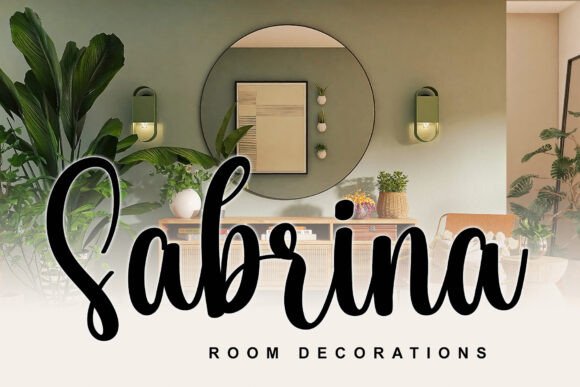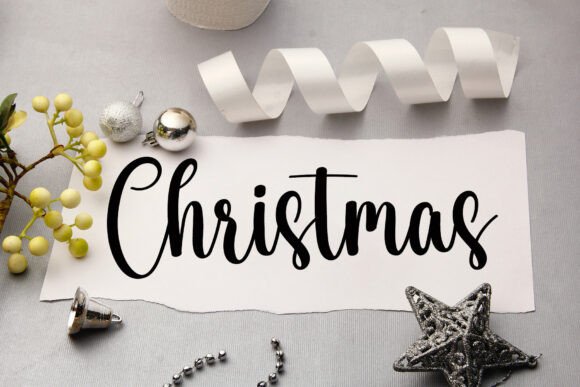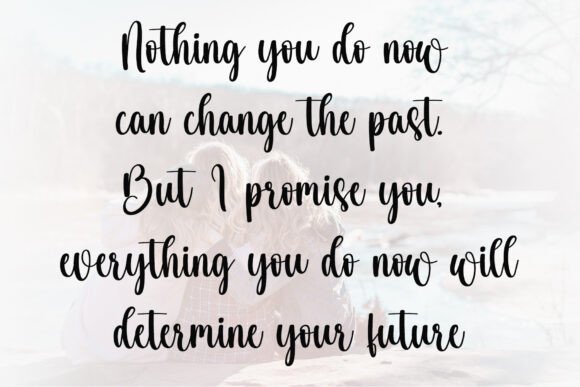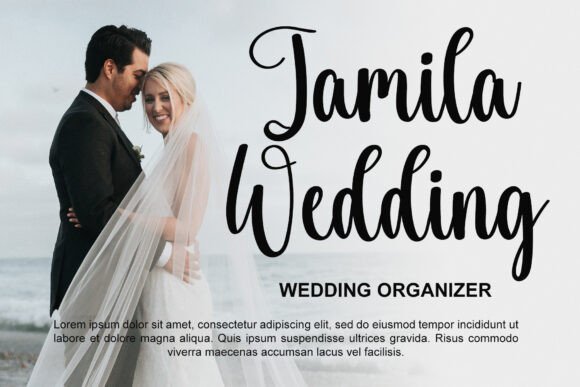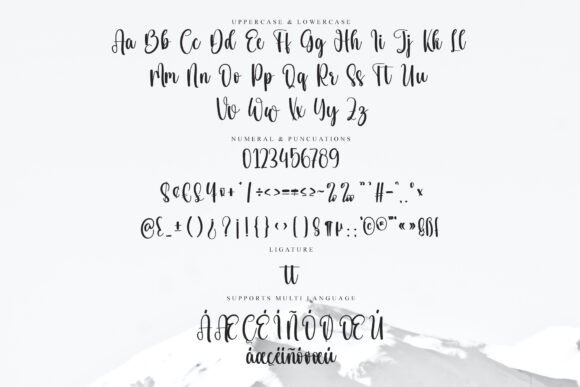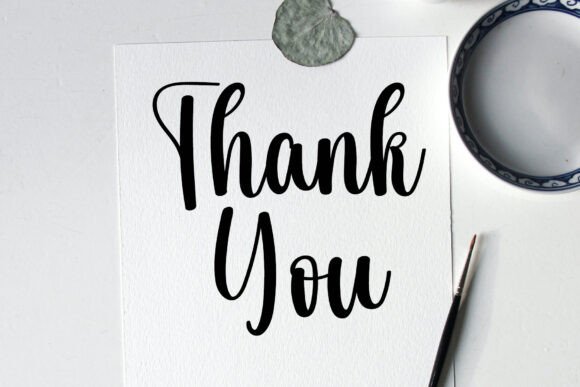
Elevate Your Designs with the Elegance of Calligraphy Fonts
Calligraphy, the art of beautiful handwriting, has been a cornerstone of elegant design for centuries. With the evolution of digital design, calligraphy fonts have become a staple for creatives looking to add a touch of sophistication and modern flair to their projects. One such font that has captured the essence of stylish and modern handwritten typography is the Calligraphy Font. This versatile font is perfect for a wide spectrum of applications, ranging from greeting cards and headlines to branding and packaging, ensuring that each of your creations stands out with a unique touch of happiness.
The Versatility of Calligraphy Font
Calligraphy Font is not just another addition to your typography collection; it’s a game-changer. Its stylish and modern handwritten aesthetic makes it incredibly versatile, suitable for various design projects. Whether you’re working on:
- Greeting Cards: Add a personal and elegant touch to your cards, making them memorable for any occasion.
- Headlines: Elevate your editorial designs, advertisements, and blog posts with headlines that capture attention and convey elegance.
- Branding: Establish a unique brand identity with a calligraphy font that speaks to sophistication and luxury.
- Packaging: Stand out on store shelves with packaging designs that exude premium quality and style.
The Power of PUA Encoding
What sets Calligraphy Font apart is its PUA (Private Use Area) encoding. This feature is a significant advantage for designers and crafters. PUA encoding allows for easy access to all the amazing glyphs and ligatures that the font has to offer. This means you can:
- Easily Access Alternate Characters: Switch between different glyphs to add variety and uniqueness to your text.
- Utilize Ligatures: Combine letters to create flowing, connected script that mimics traditional calligraphy.
- Enhance Readability and Aesthetics: With a wide range of characters at your disposal, you can optimize your text for both readability and visual appeal.
Why Choose Calligraphy Font?
In a world where digital designs are omnipresent, standing out requires creativity and the right typography. Here are a few reasons why Calligraphy Font should be your go-to choice:
- Unique and Memorable: A calligraphy font gives your designs a distinctive look that is sure to leave a lasting impression.
- Professional and Elegant: Perfect for projects that demand a touch of luxury and sophistication.
- Versatile: Suitable for both digital and print projects, offering flexibility in your design workflow.
- User-Friendly: With PUA encoding, using and customizing the font is straightforward, even for complex designs.
Tips for Using Calligraphy Font Effectively
To maximize the impact of Calligraphy Font in your designs, consider the following tips:
- Pair with Simpler Fonts: Use calligraphy for headlines and pair it with a simpler font for body text to create visual hierarchy.
- Experiment with Colors: While the font itself is elegant, experimenting with colors can further enhance its beauty.
- Play with Sizes: Varying font sizes can add depth and interest to your designs.
- Utilize Ligatures: Make the most of the font’s ligatures to add a touch of authenticity to your calligraphy.
Calligraphy Font is more than just a typeface; it’s a tool that can elevate your designs, adding a touch of elegance and modernity. Its versatility, combined with the ease of use provided by PUA encoding, makes it an indispensable asset for designers and crafters alike. Whether you’re creating greeting cards, headlines, branding materials, or packaging, this font promises to bring a unique and stylish touch to your projects. Embrace the art of calligraphy and let your designs speak with elegance and sophistication.